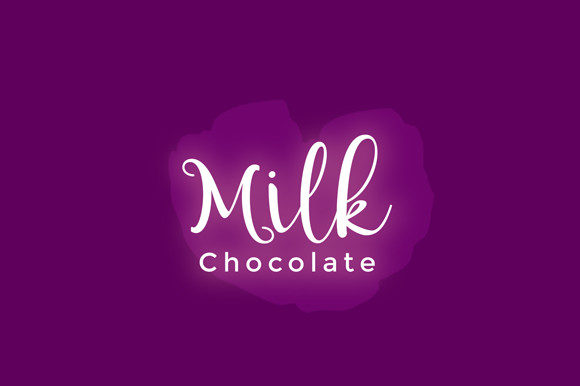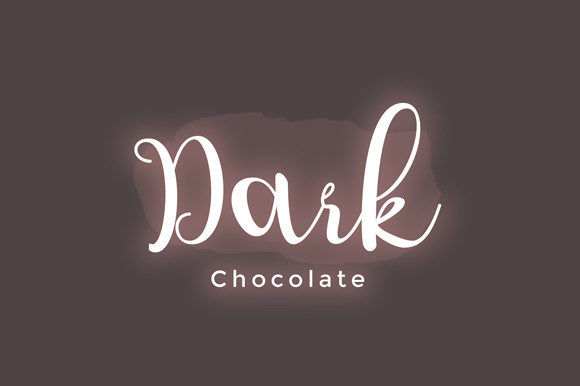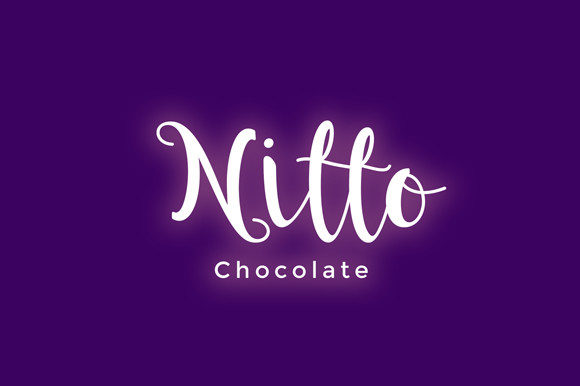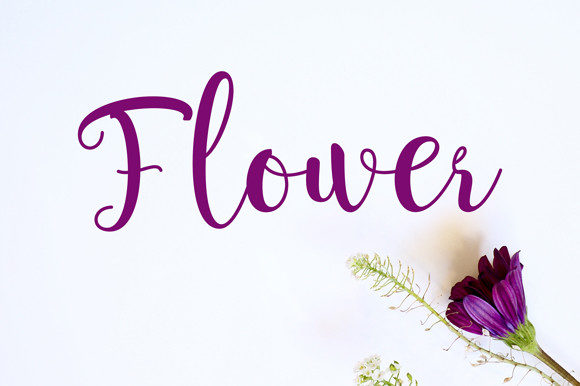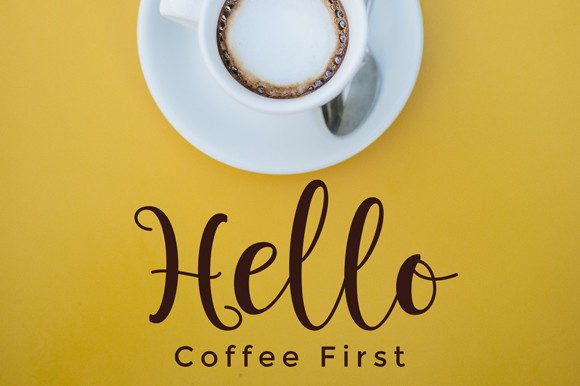
Chocolate Script Font
About Chocolate Script Font
Chocolate is a wonderful, modern script font. It is neatly crafted and highly detailed. Whatever the topic, this typeface will be a wonderful asset to your font library, as it has the potential to enhance any creation.